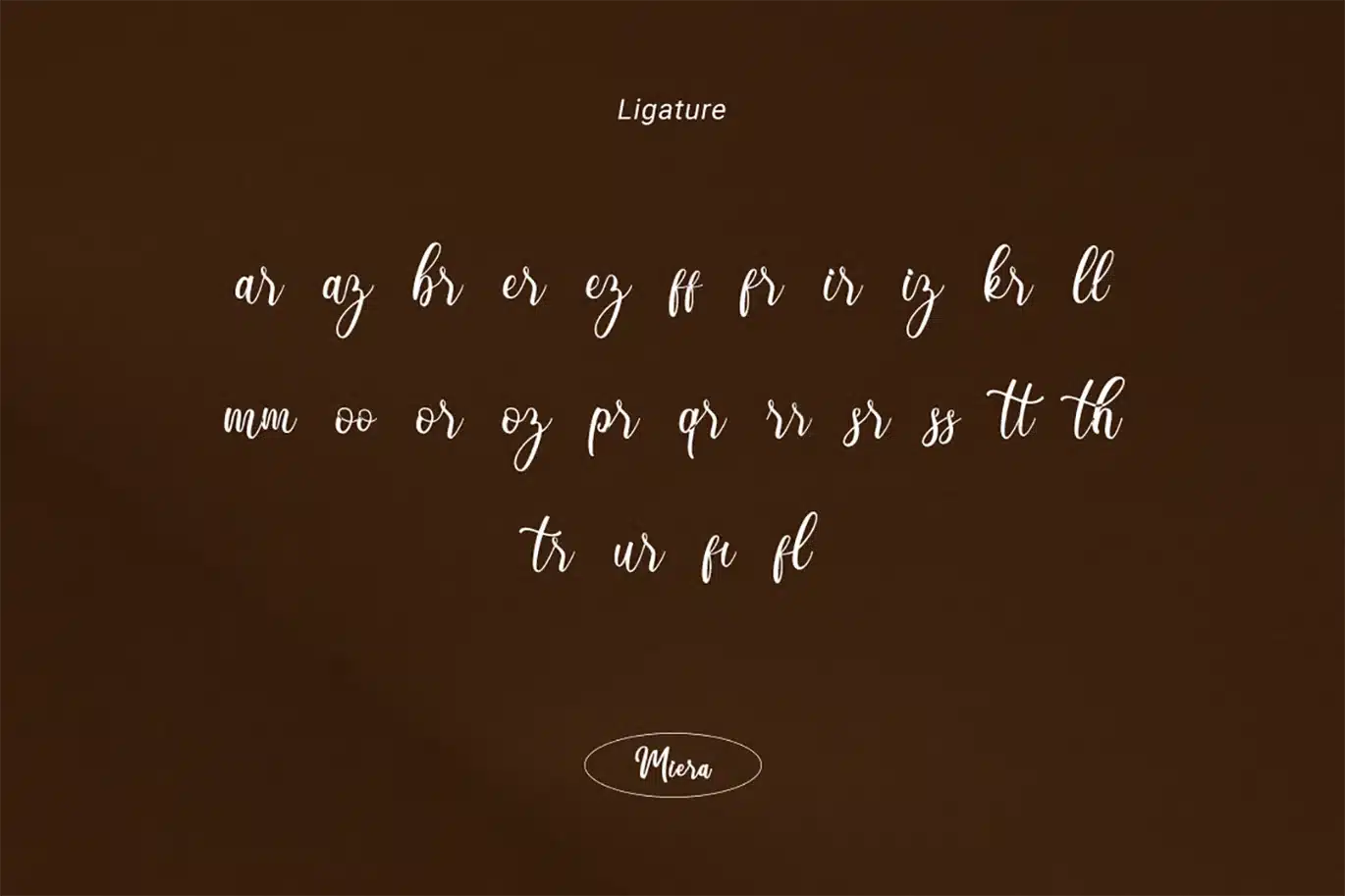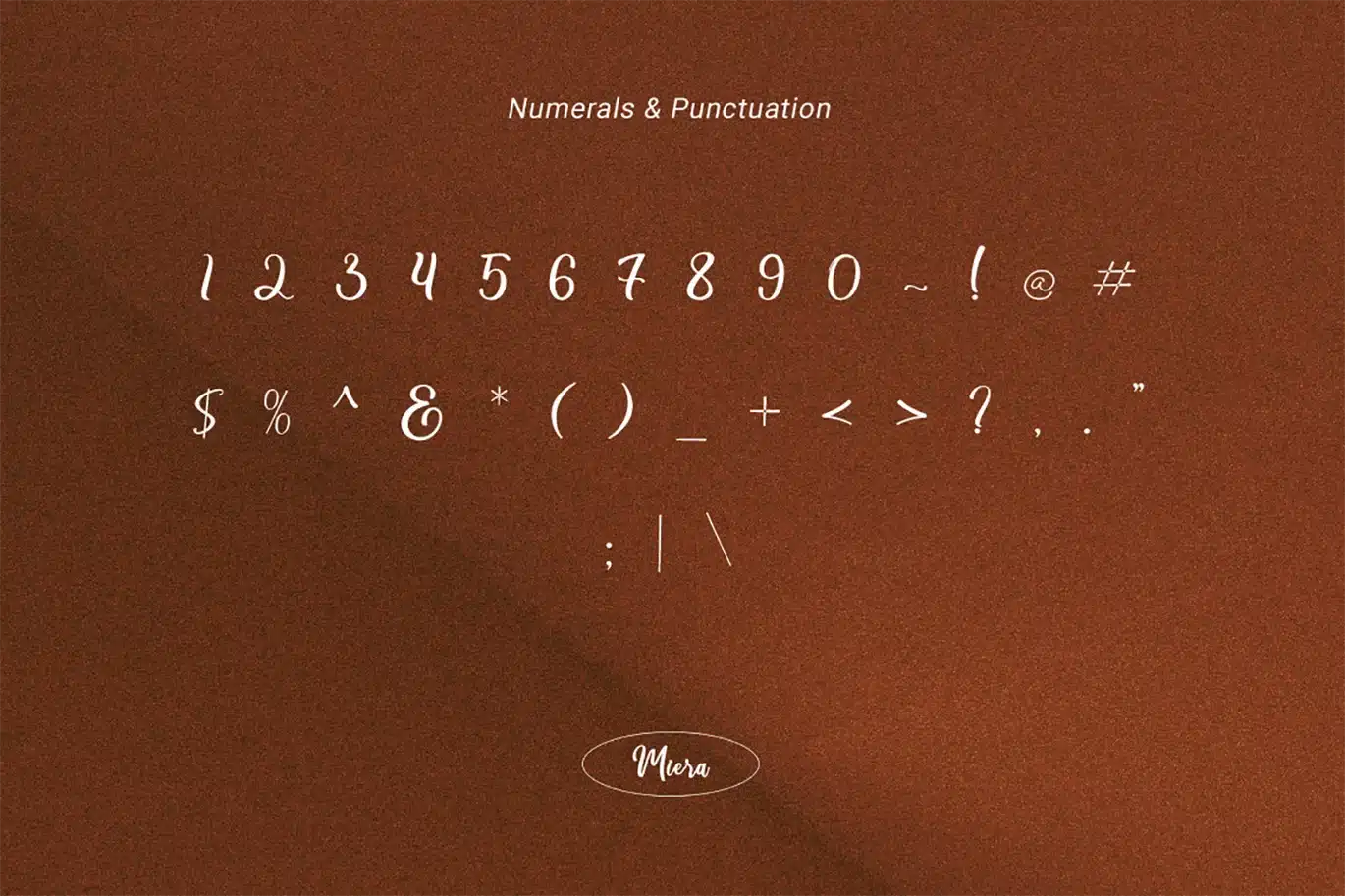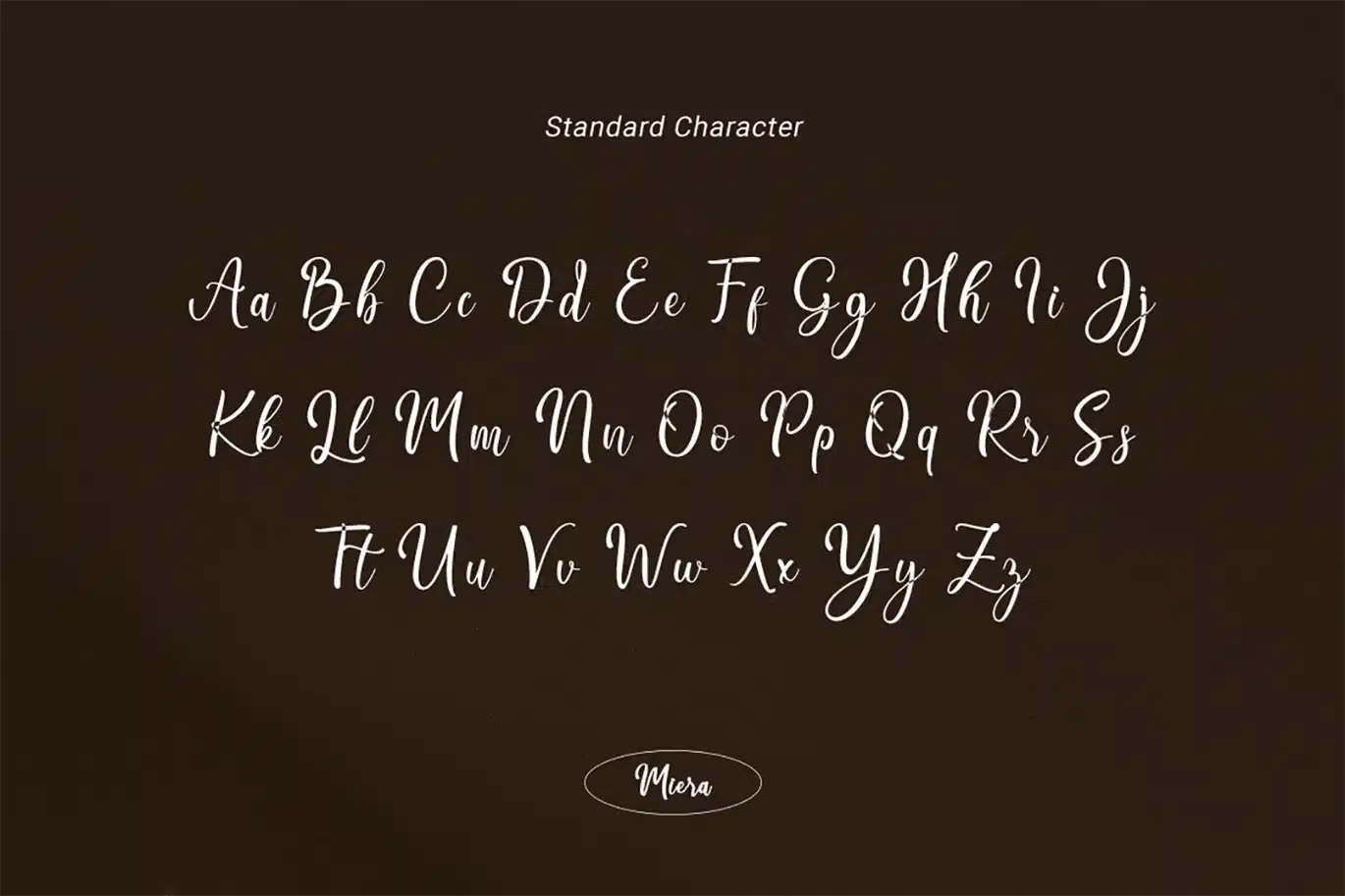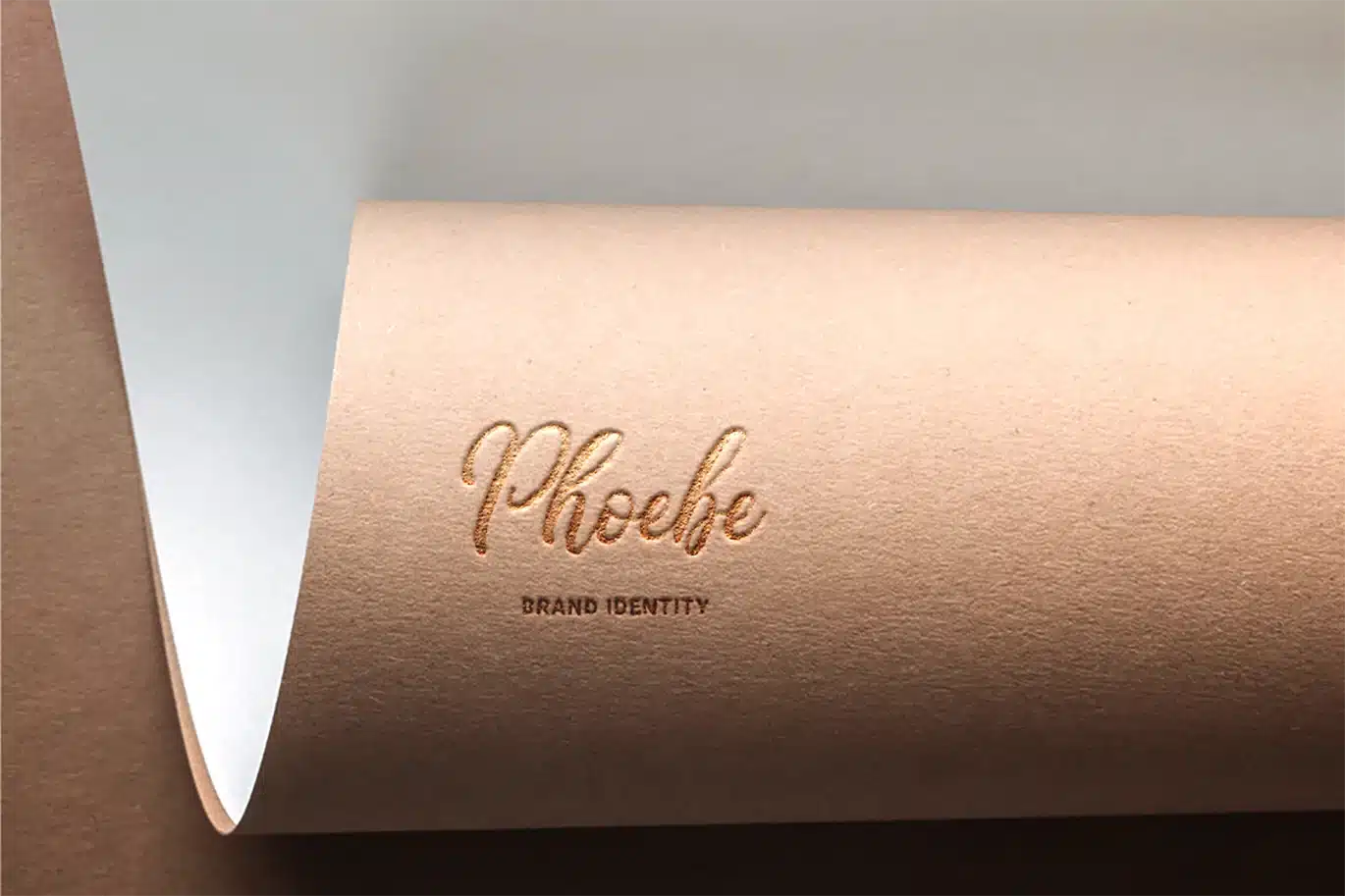
Miera – Joyful Script Font
Introducing Miera Font
Miera is a beautiful joyful script font, created using direct hand gestures. This font has been carefully designed to recreate natural, handwritten text, and includes special ligatures for free-flowing pen strokes. Miera is perfect for handwritten quotes, tagging, stylish logos, stylish branding projects, and handcrafted product & stationery designs.